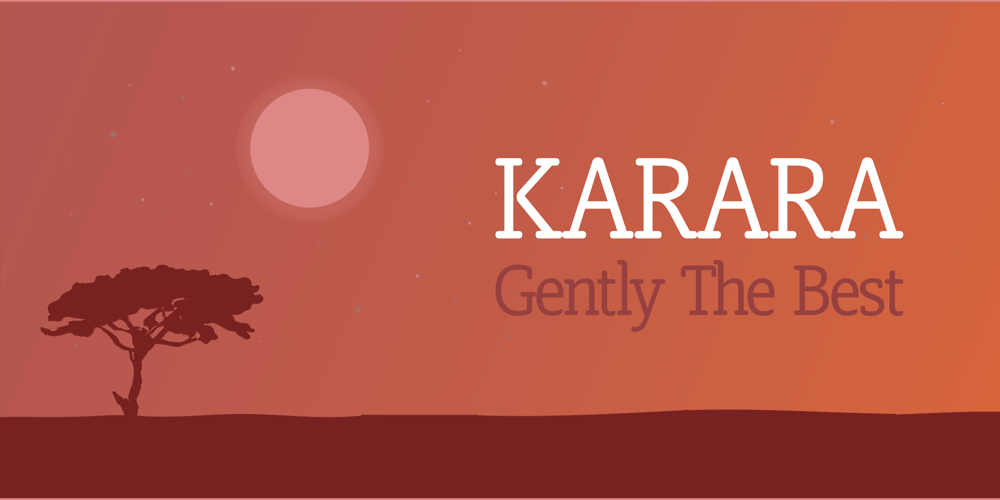
Karara
Karara font
Karara Font Family was designed by Ahsan Ahmedzai and published by Kufic Studio. Karara contains 4 styles and family package options. Karara means Calm, Mildly, Quietly & Peaceful. A font created for those who loves to read online, the Karara font will be ease to read and yet attractive to temp audience to read more.The font has the simple and minimalist factor with all main characters, the font is especially made for those who are in printing and branding fields.